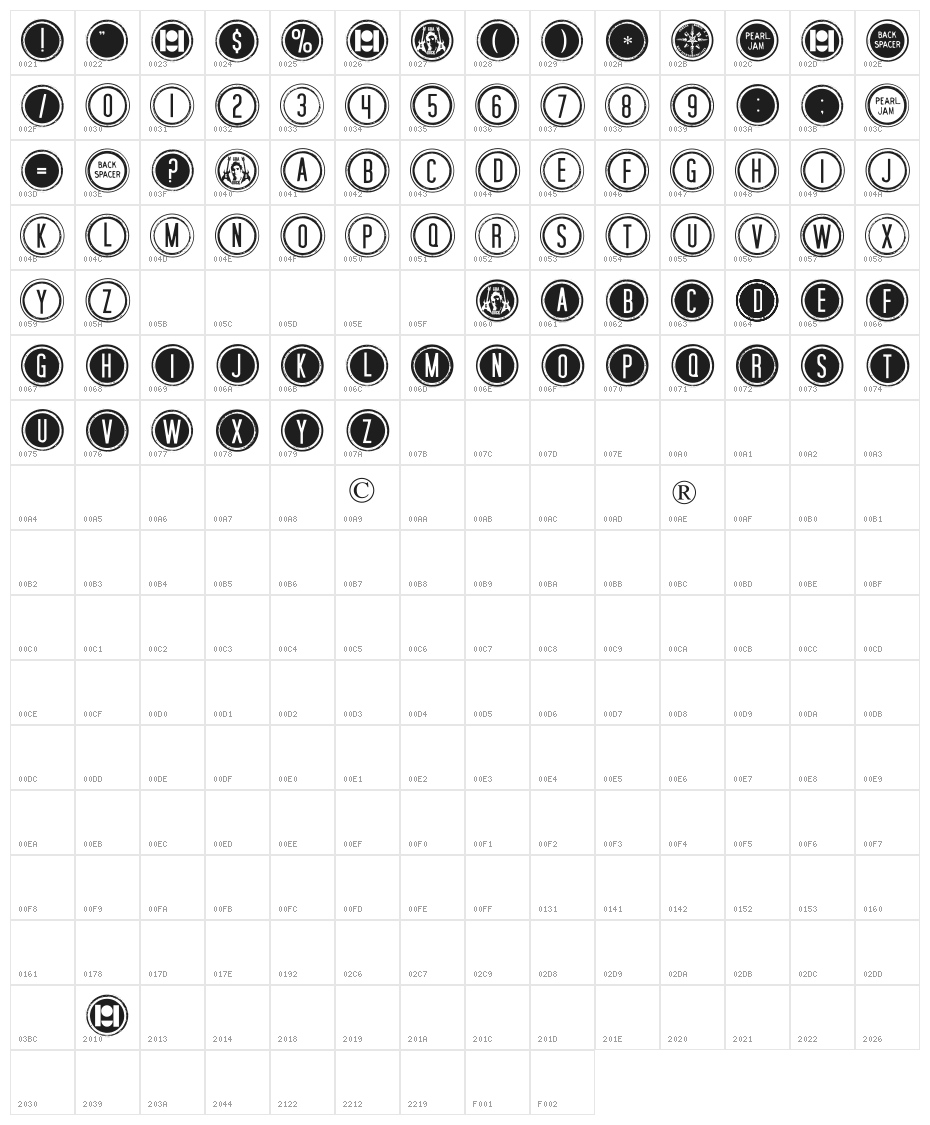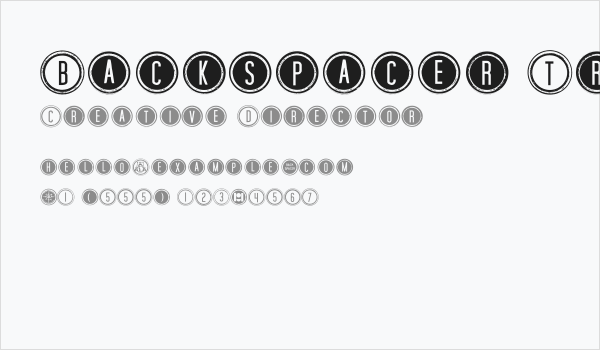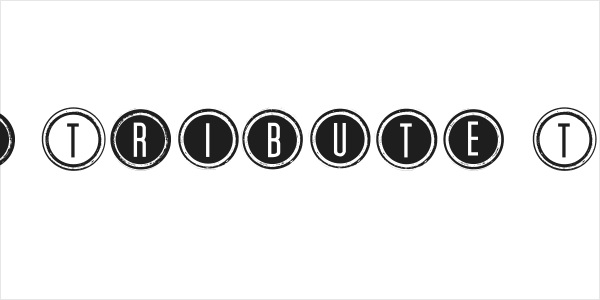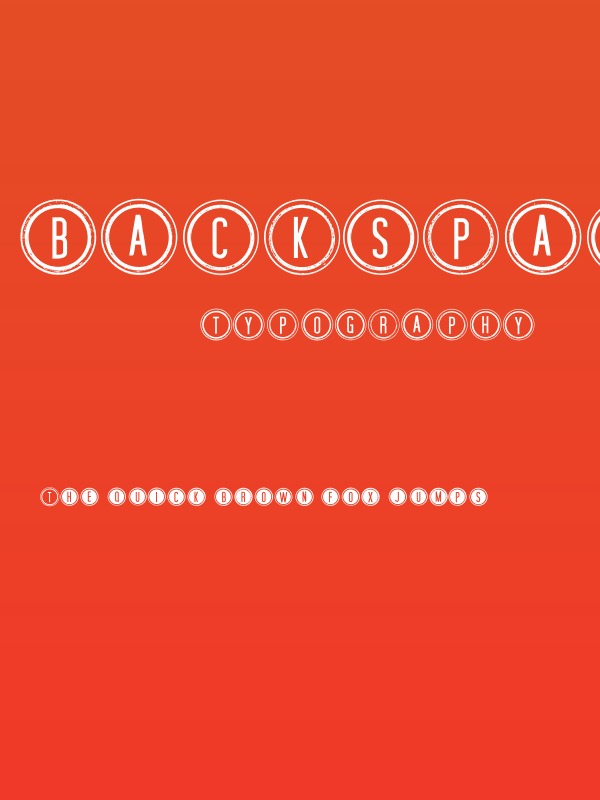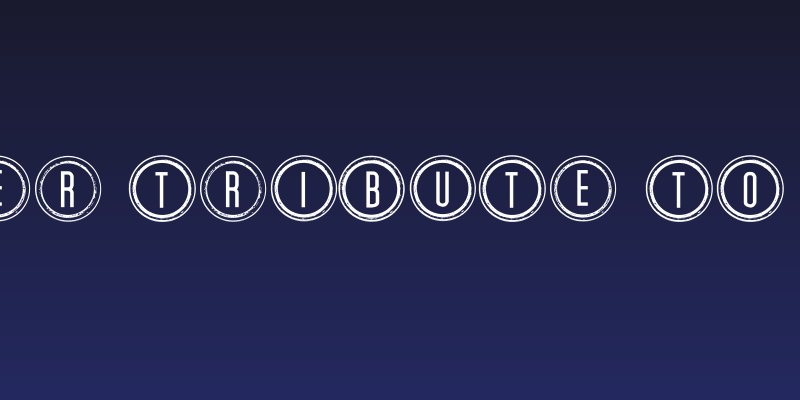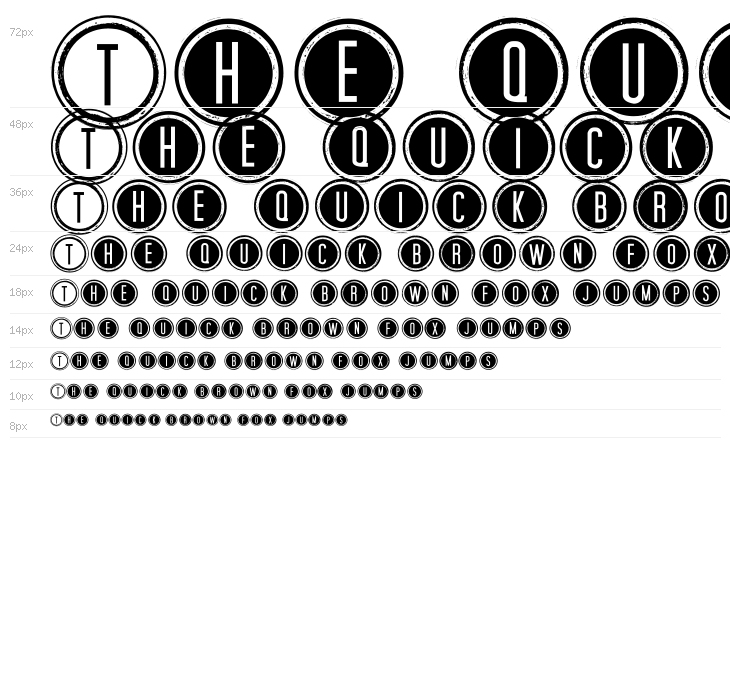
Backspacer Tribute To Pearl Jam Font
Backspacer Tribute To Pearl Jam Description
This font features bold, circular characters enclosed within a double-lined border, creating a striking and modern appearance. The uppercase letters are evenly spaced, with a clean and geometric design that enhances readability. The numbers and special characters maintain the same circular motif, ensuring consistency across the typeface. The font's unique style is reminiscent of vintage typewriter keys, yet it carries a contemporary flair that makes it versatile for various design projects. Its boldness and distinctiveness make it ideal for attention-grabbing headlines and logos.
| Proposed Projects | Ideal for music-themed posters, album covers, branding, and retro-inspired designs. |